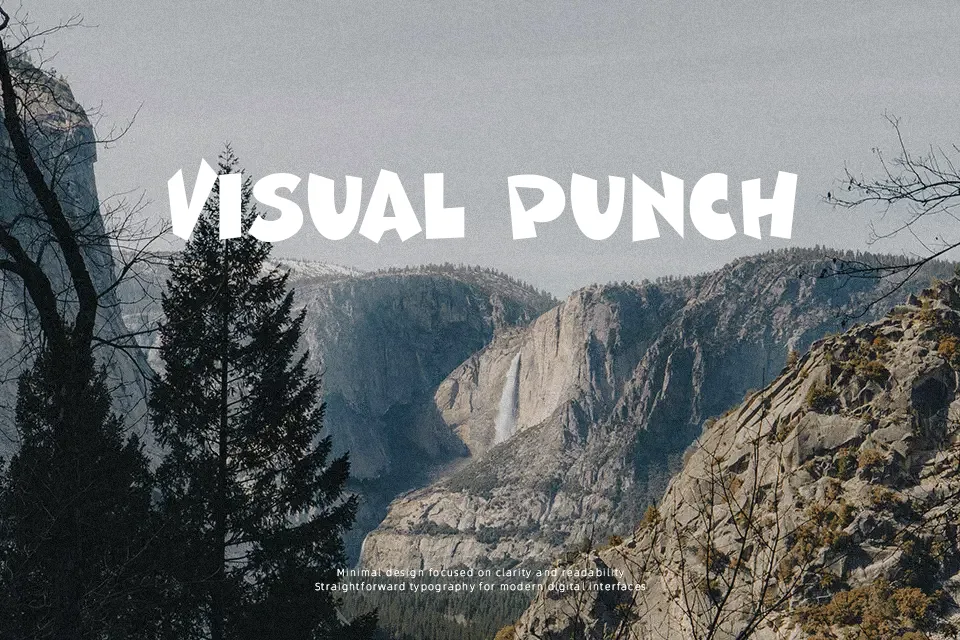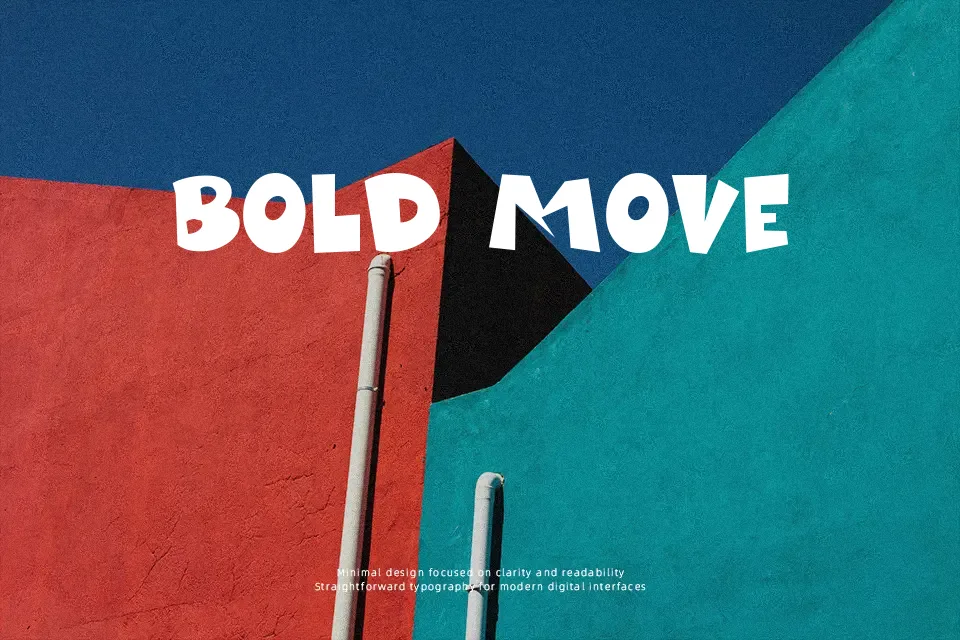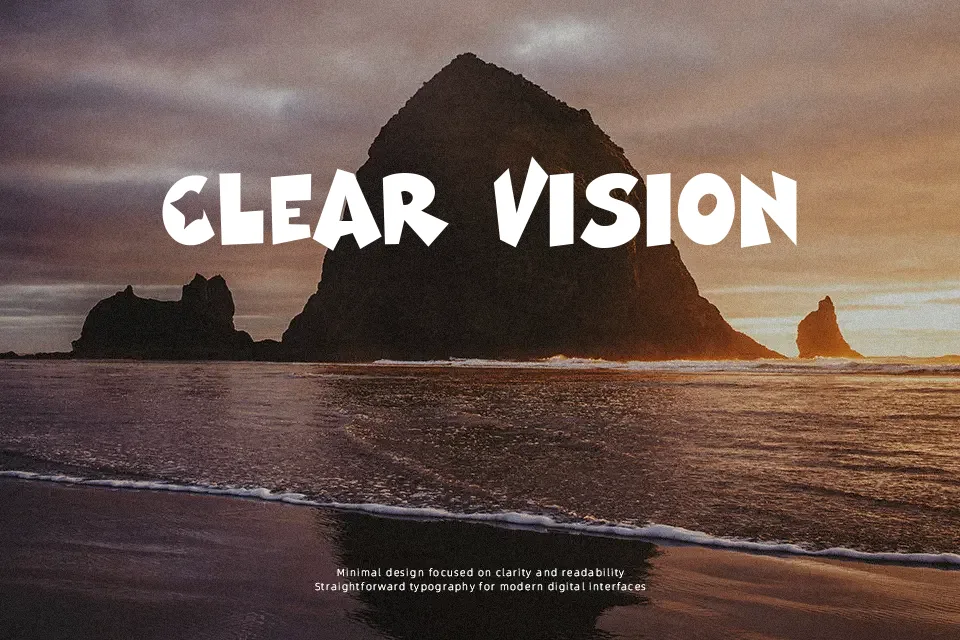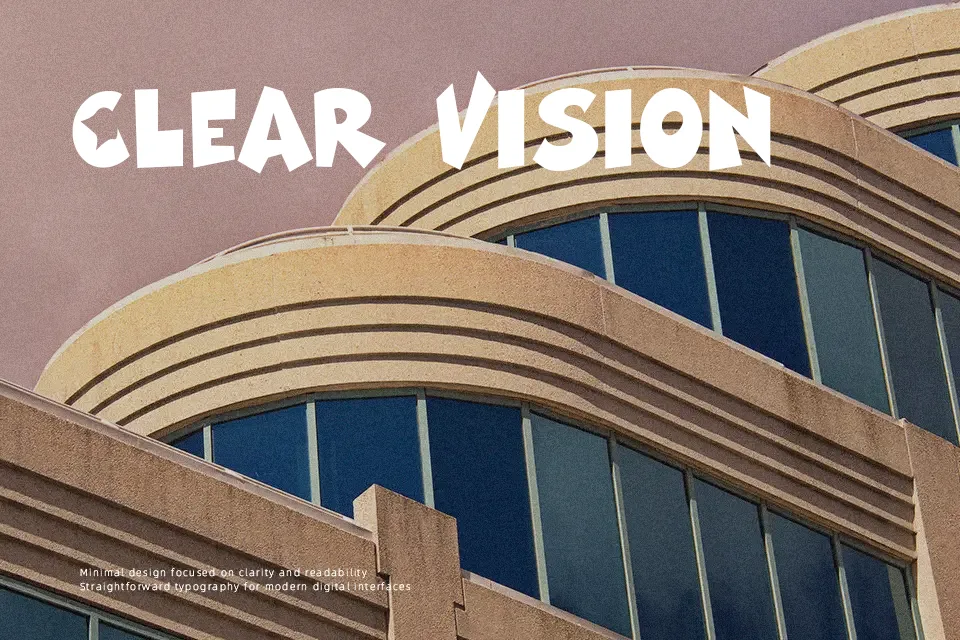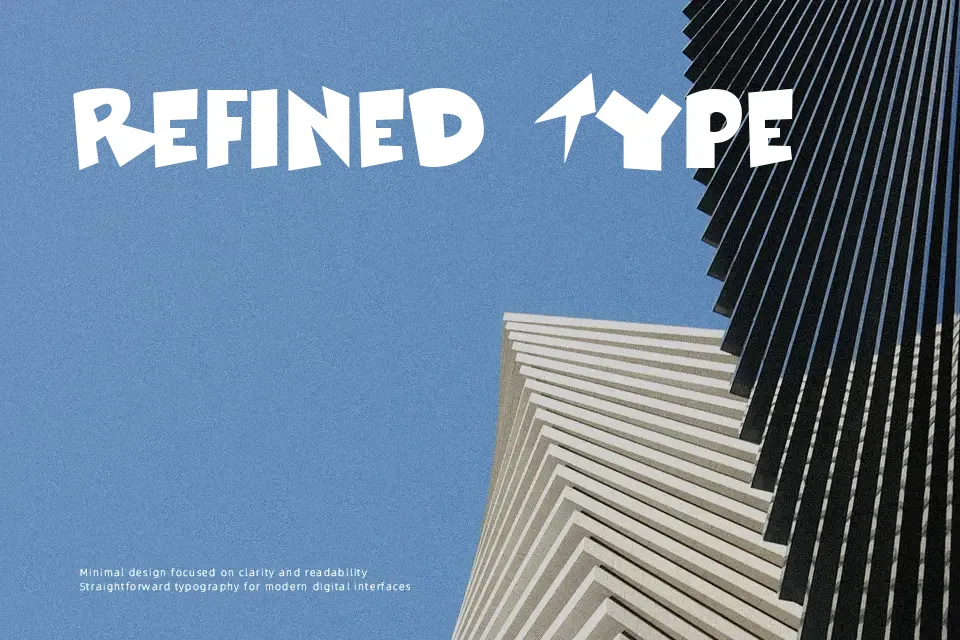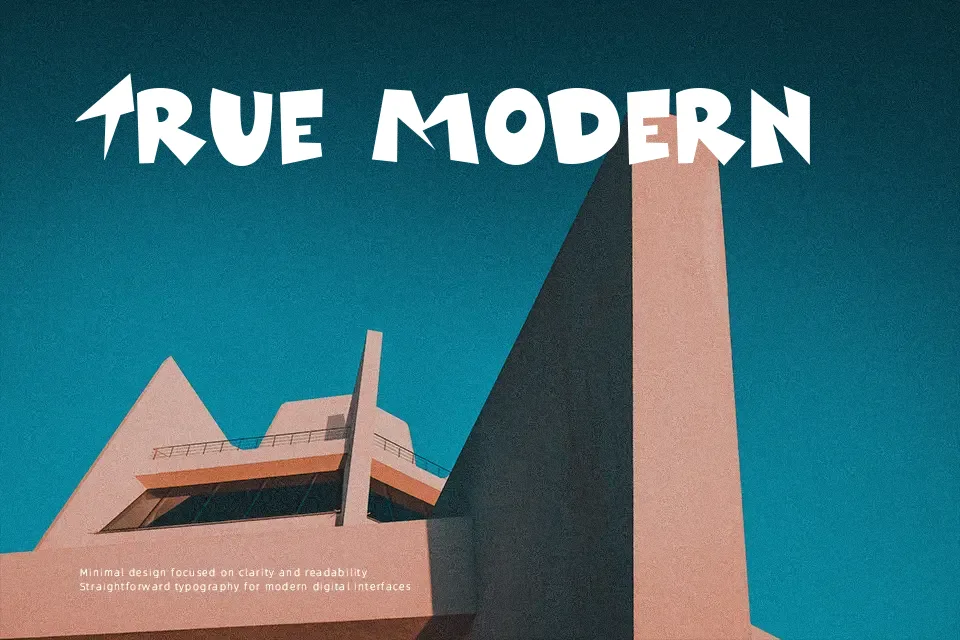
Vaca Font
Vaca Font presents an expressive cartoon design built with heavy, rounded strokes and informal proportions across its character set. The letterforms display low stroke contrast paired with organic curves and generous internal counters, establishing a lively, friendly visual rhythm. Spacing remains open and balanced to keep individual characters legible across large headlines and bold title treatments. However, the exaggerated bulk and decorative outlines make the design poorly suited for continuous paragraph reading, where glyphs quickly overwhelm dense compositions. For oversized banners and energetic creative graphics, the typeface delivers immediate visual impact and cheerful personality.
Best For: children’s book titles, animated show logos, casual party flyers, toy packaging
Not Ideal For: continuous body text, formal corporate reports, legal contracts, dense mobile navigation